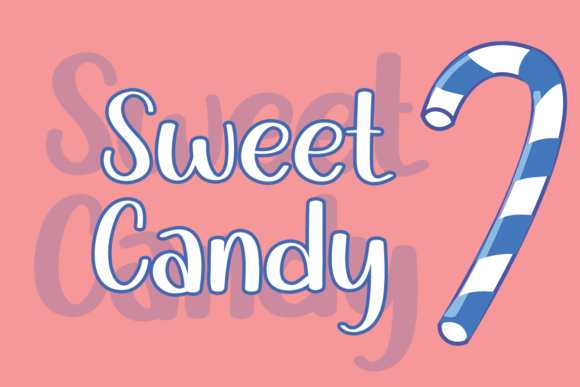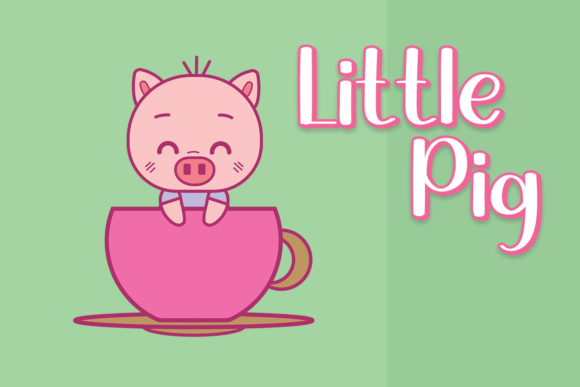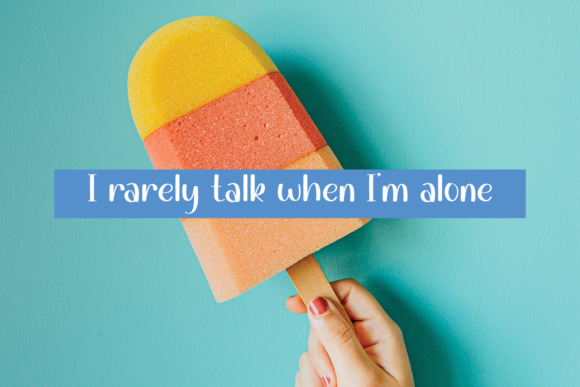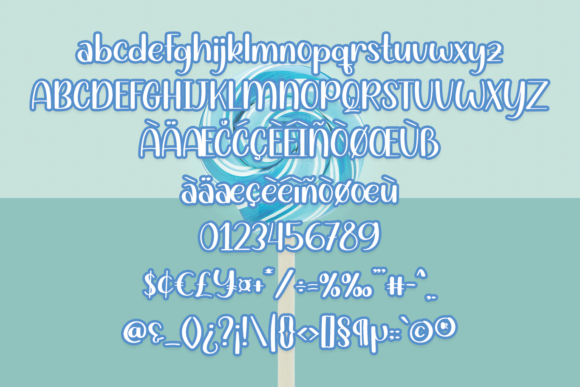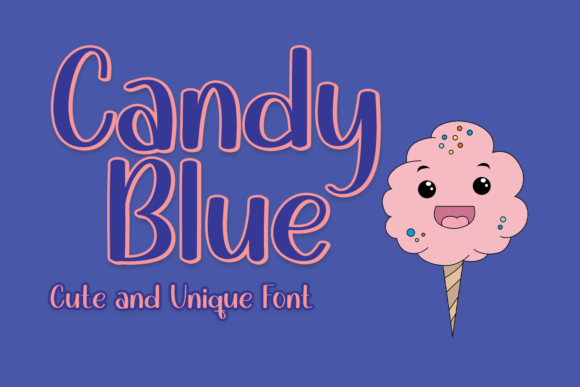
Candy Blue Font: Elevate Your Designs with a Modern Twist
In the world of typography, fonts play a crucial role in making or breaking a design. A perfect blend of style, readability, and smartness is what every designer strives for. This is where Candy Blue Font comes into play – a modern display font that is redefining the way we approach fashion branding and editorial designs. With its smooth curves and sleek appearance, Candy Blue is quickly becoming a favorite among designers and crafters alike.
The Charm of Candy Blue Font
Candy Blue Font is not just another addition to the vast sea of fonts available online. It stands out with its unique blend of modernity and elegance. The font’s design is characterized by smooth, flowing curves that give it a soft yet sophisticated look. This makes it an ideal choice for projects that demand a touch of class and style, such as fashion magazines, brand logos, and editorial content.
Why Choose Candy Blue Font?
There are several reasons why Candy Blue Font should be your go-to choice for your next design project:
- Readability: Despite being a display font, Candy Blue maintains a high level of readability. Its clear and distinct letterforms ensure that your message is conveyed effectively, making it perfect for both headings and body text.
- Smart and Stylish: The font’s smart and stylish appearance is sure to make your designs stand out. Its modern look can add a fresh feel to any project, making it appealing to a wide audience.
- Versatility: Candy Blue Font is versatile and can be used across various platforms and mediums. Whether you’re working on a digital project or a print design, this font adapts seamlessly.
- Fashion Branding and Editorial Designs: Specifically designed with fashion branding and editorial designs in mind, Candy Blue brings a level of sophistication and elegance that is hard to match.
Using Candy Blue Font in Your Projects
Adding Candy Blue Font to your projects is a straightforward process that can elevate your designs instantly. Here are a few tips on how to make the most out of this beautiful font:
- Pair it with Complementary Fonts: For a balanced look, pair Candy Blue with simpler fonts for body text. This contrast will make your headings pop without overwhelming the reader.
- Experiment with Colors: While the ‘Candy Blue’ hue is stunning, don’t be afraid to experiment with different colors. The font’s versatility allows it to work well with a variety of color schemes.
- Adjust the Size: Although designed as a display font, Candy Blue can be used at various sizes. Experiment with different sizes to find the perfect balance for your design.
Candy Blue Font in the World of Design
The world of design is constantly evolving, and fonts play a pivotal role in this evolution. Candy Blue Font is at the forefront of this evolution, offering designers a tool that is both modern and timeless. Its application in fashion branding and editorial designs has set a new benchmark for typography, inspiring designers to push the boundaries of creativity.
Candy Blue Font is more than just a font – it’s a design statement. With its smooth curves, stylish appearance, and high readability, it’s an excellent choice for designers looking to add a modern twist to their projects. Whether you’re working on fashion branding or editorial designs, Candy Blue Font is sure to deliver impressive results. So, add it confidently to your projects and experience the transformation it brings.